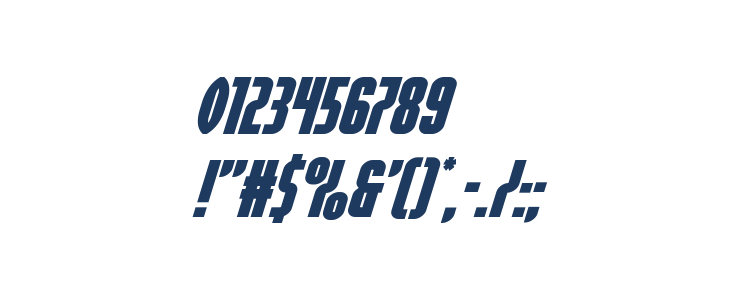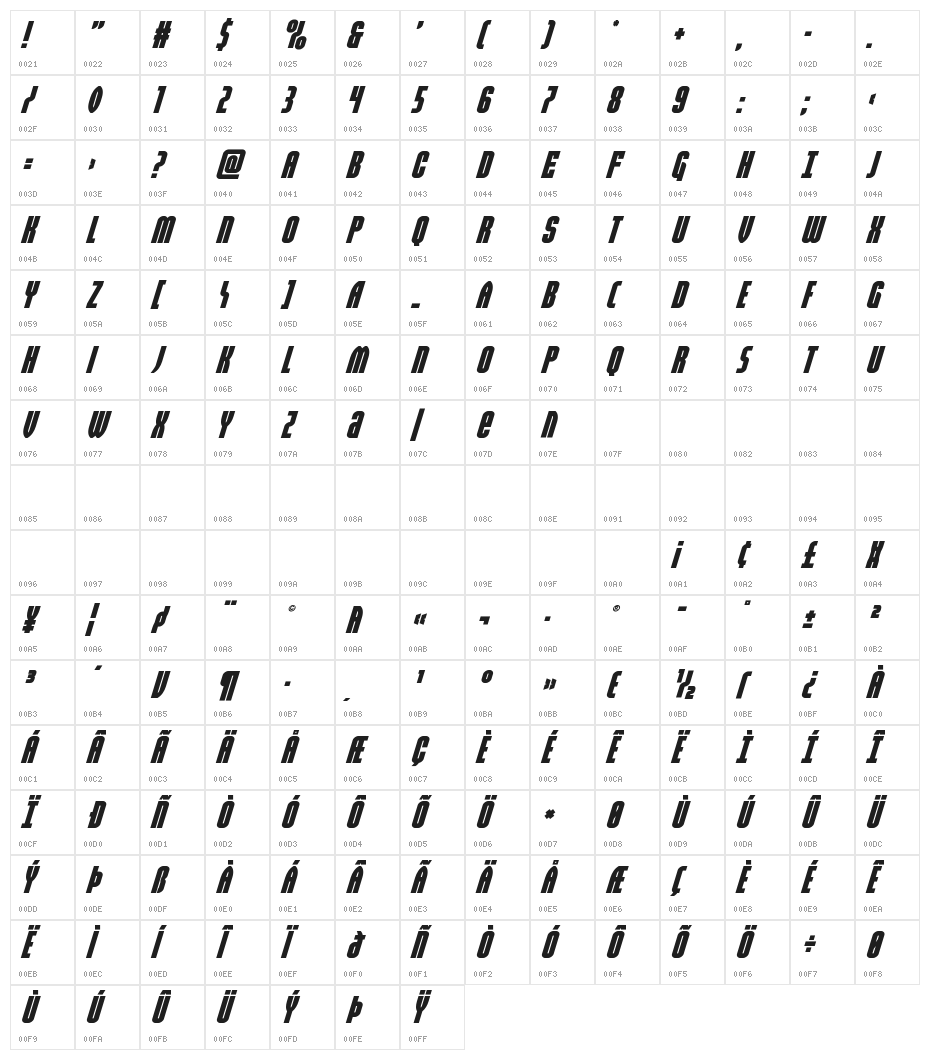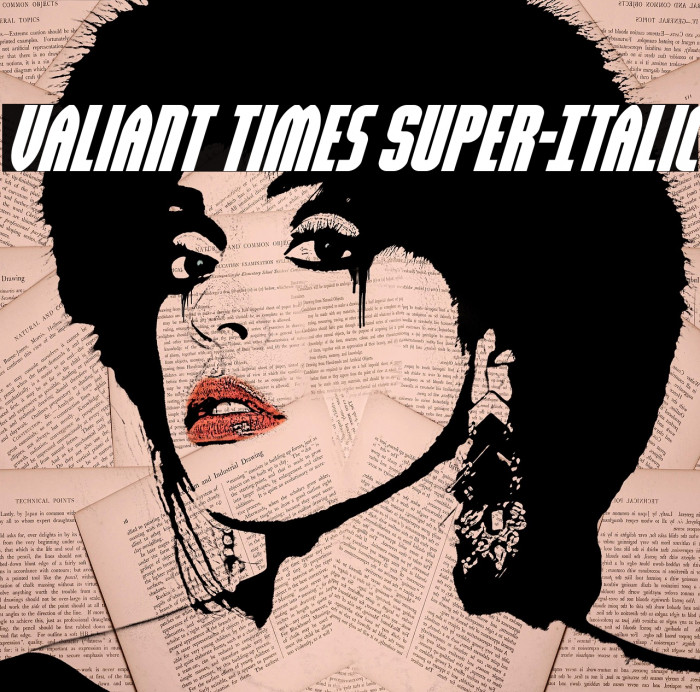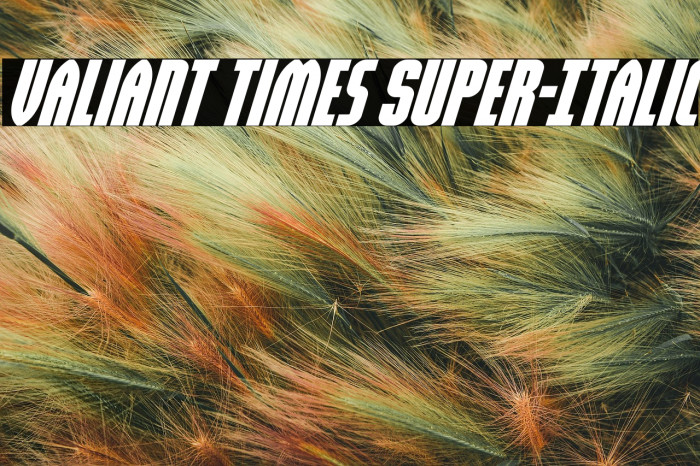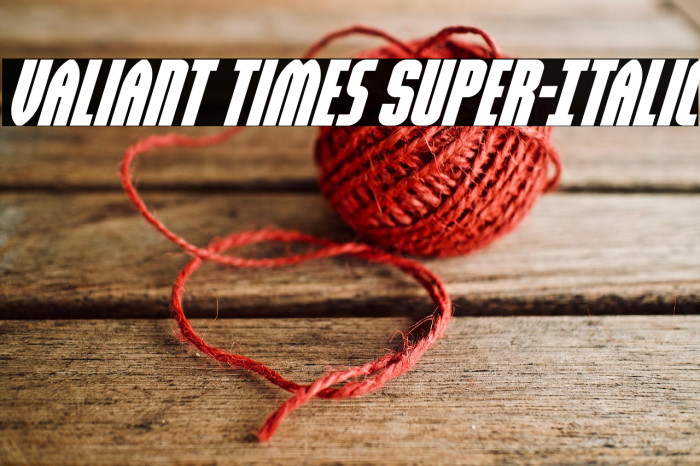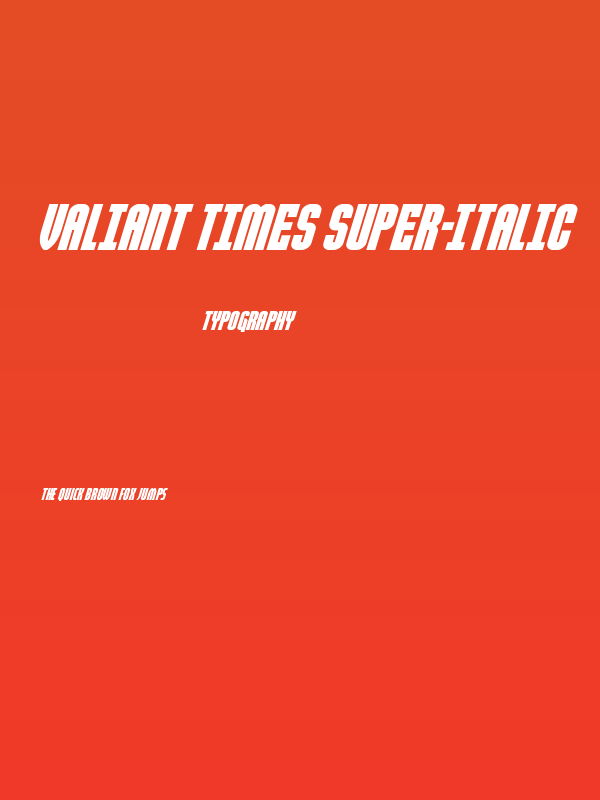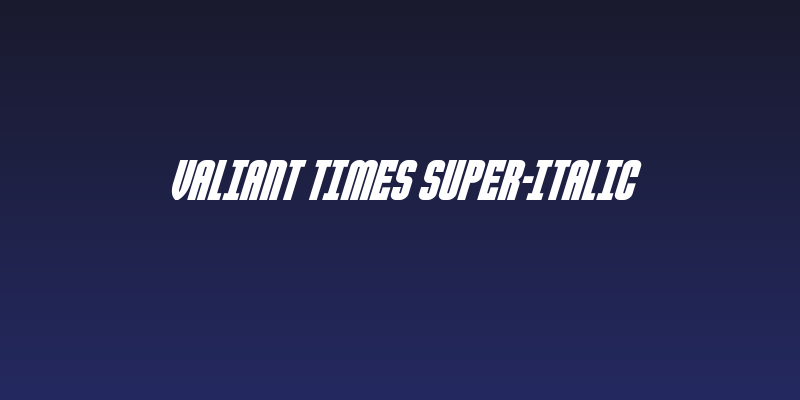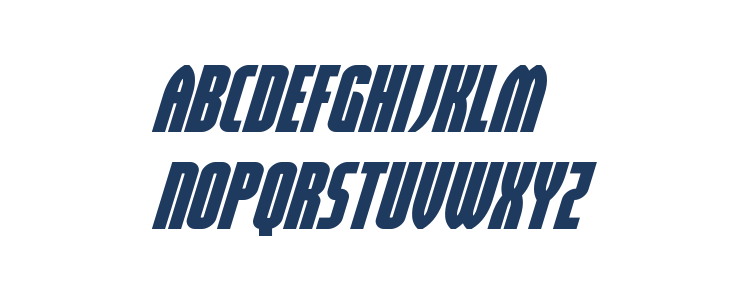
Valiant Times Super-Italic Font
Valiant Times Super-Italic Description
This font features a bold and dynamic style with a strong italic slant, giving it a sense of motion and energy. The characters are wide and robust, with a slightly condensed appearance that enhances their impact. The strokes are thick and consistent, providing a high contrast that makes the text stand out prominently. The uppercase and lowercase letters maintain a uniform style, ensuring readability while adding a touch of flair. The numerals and special characters are designed to match the boldness and slant of the alphabet, making them cohesive within the overall design. This font is ideal for projects that require a striking and modern aesthetic.
| Proposed Projects | Ideal for sports branding, posters, headlines, and dynamic advertising materials. |